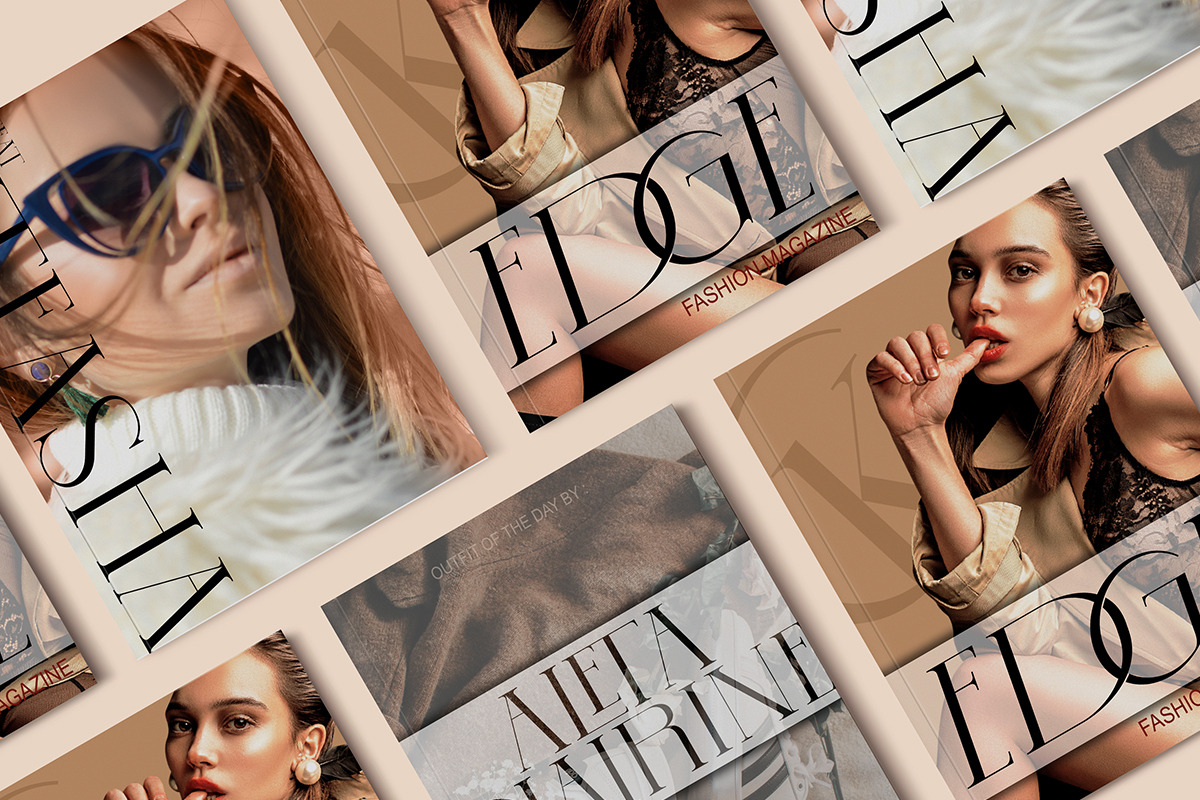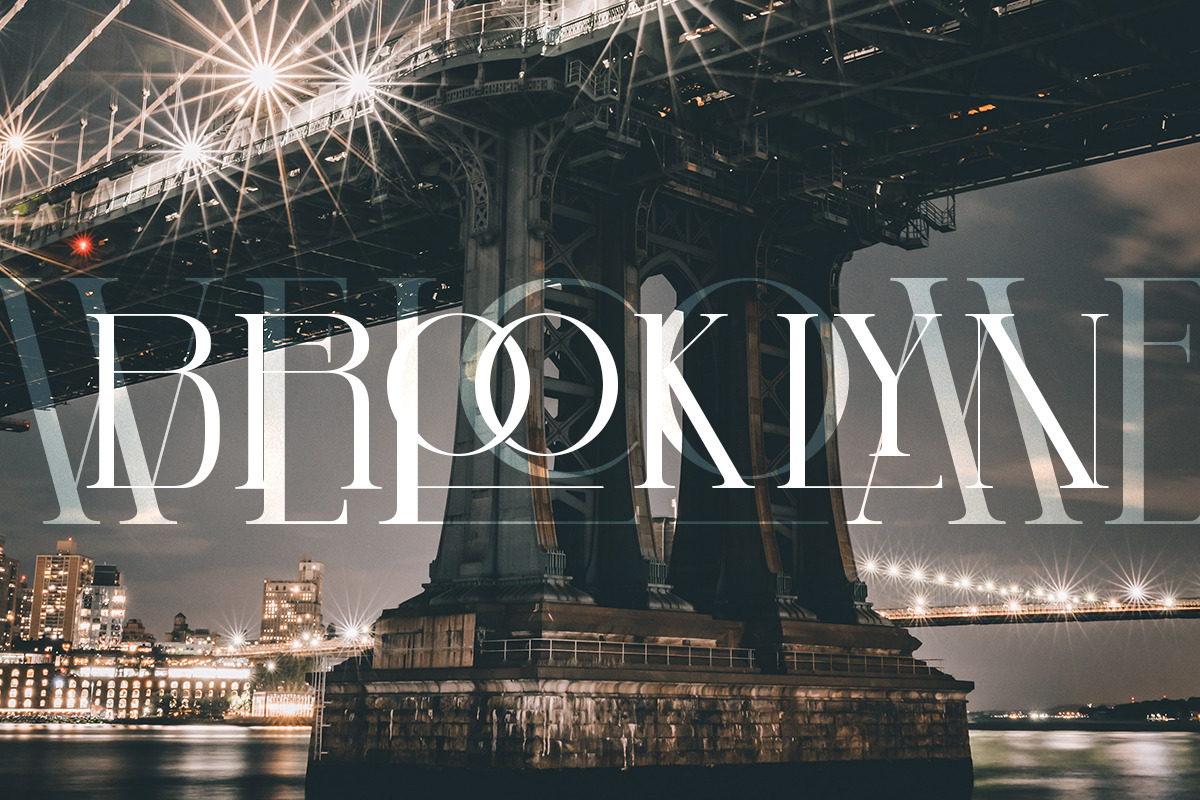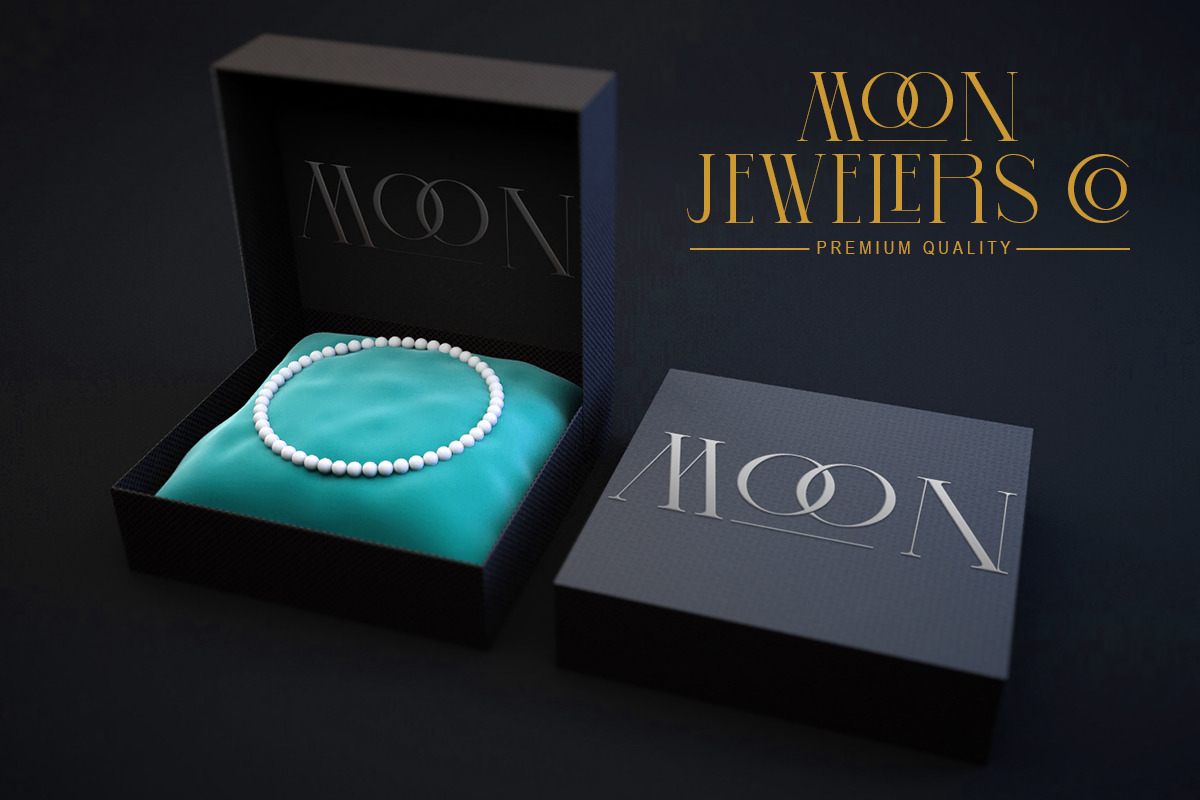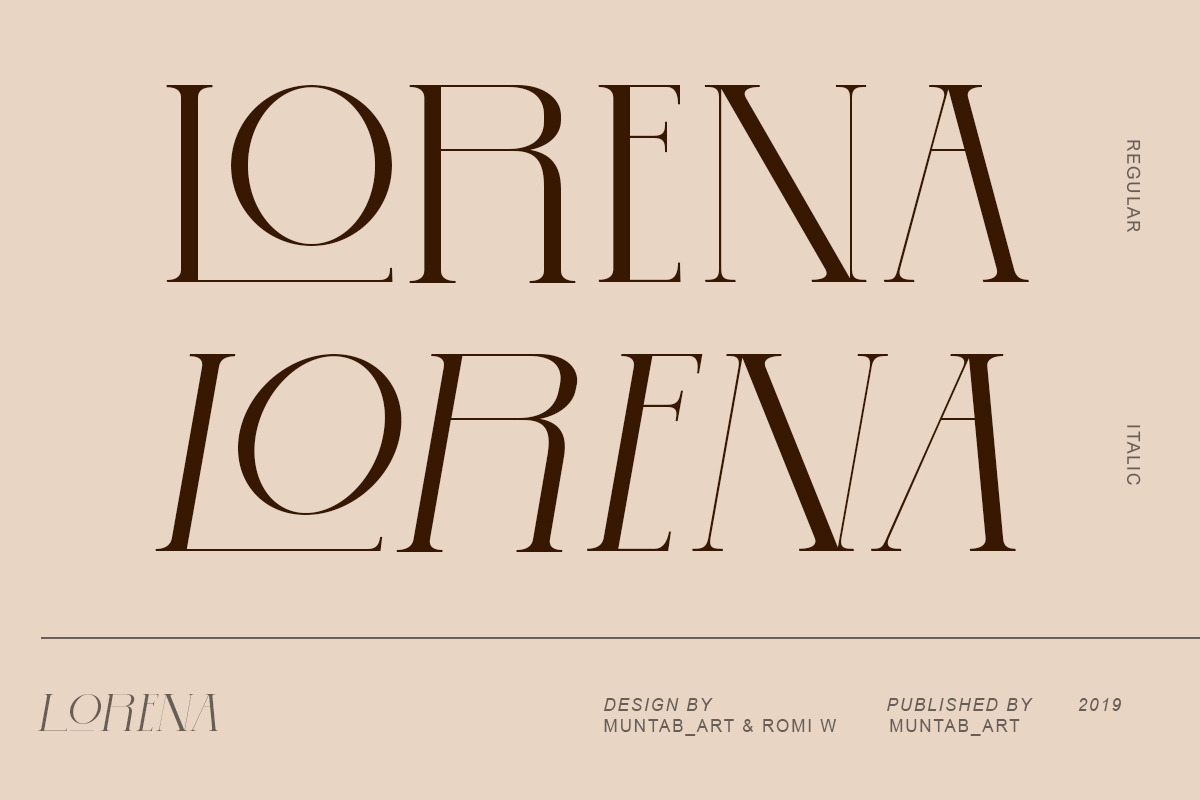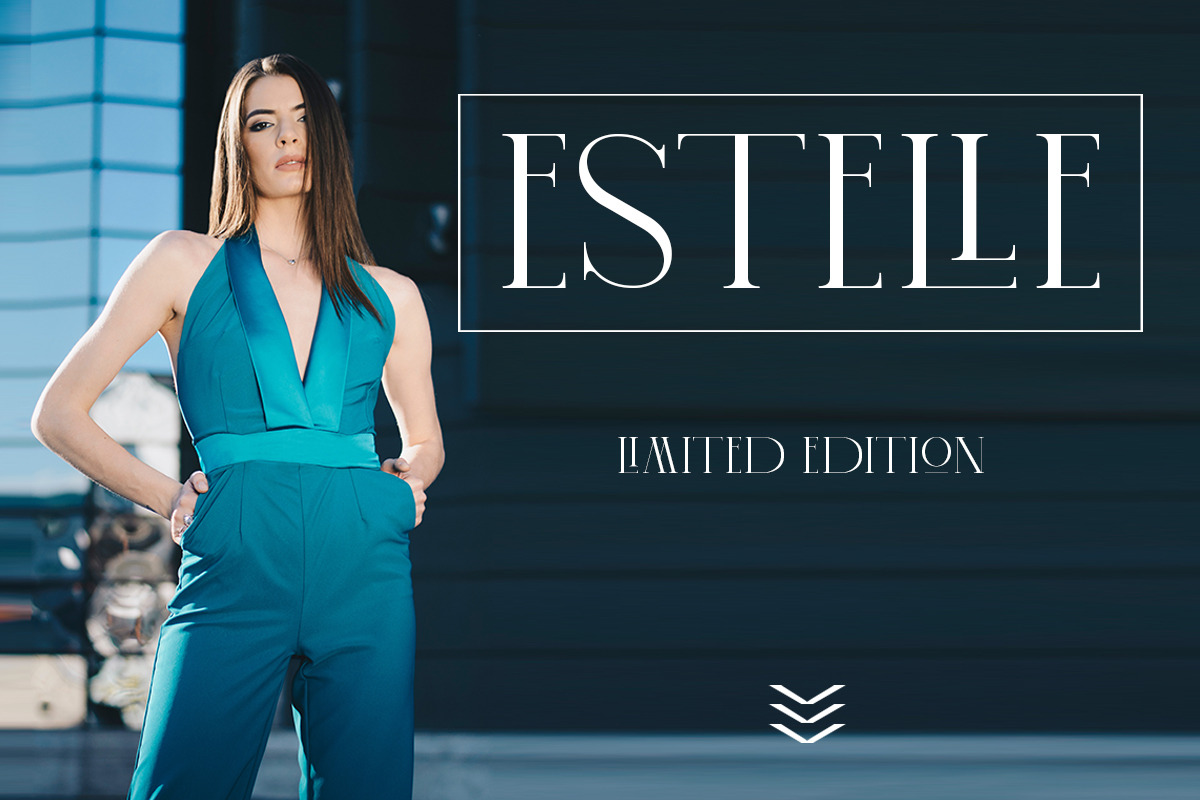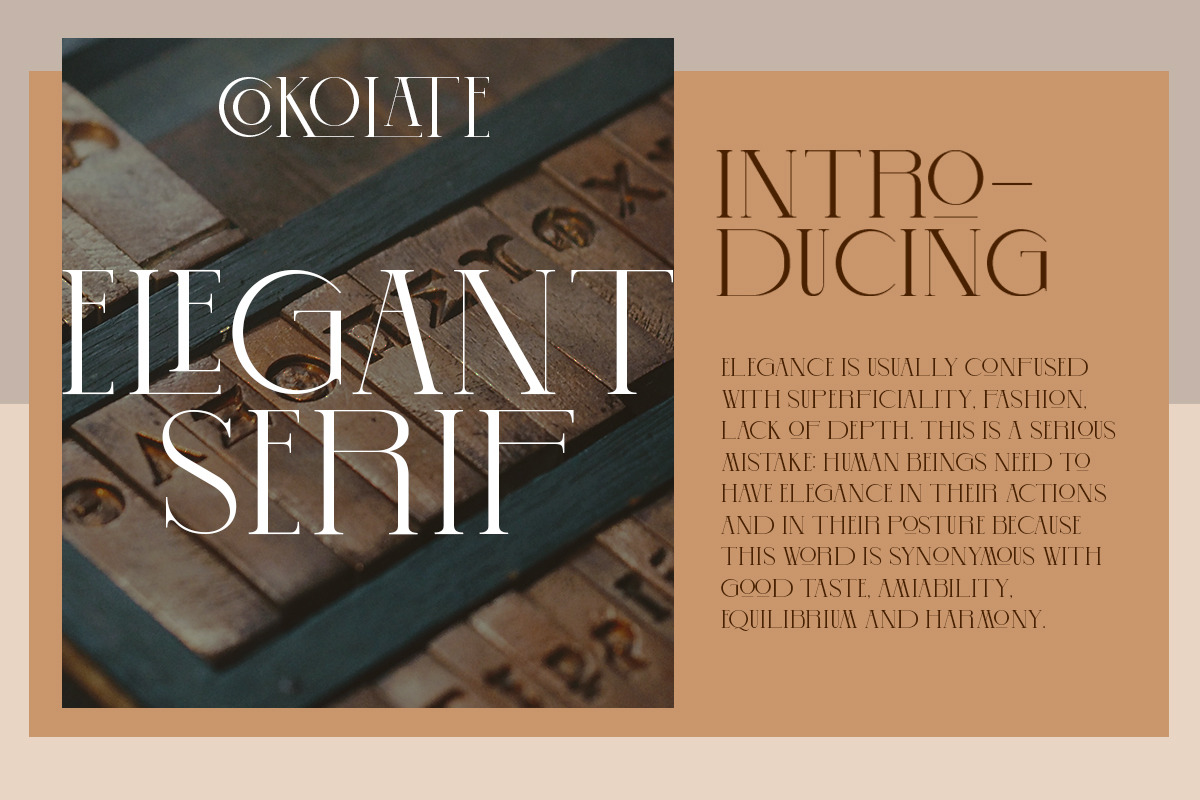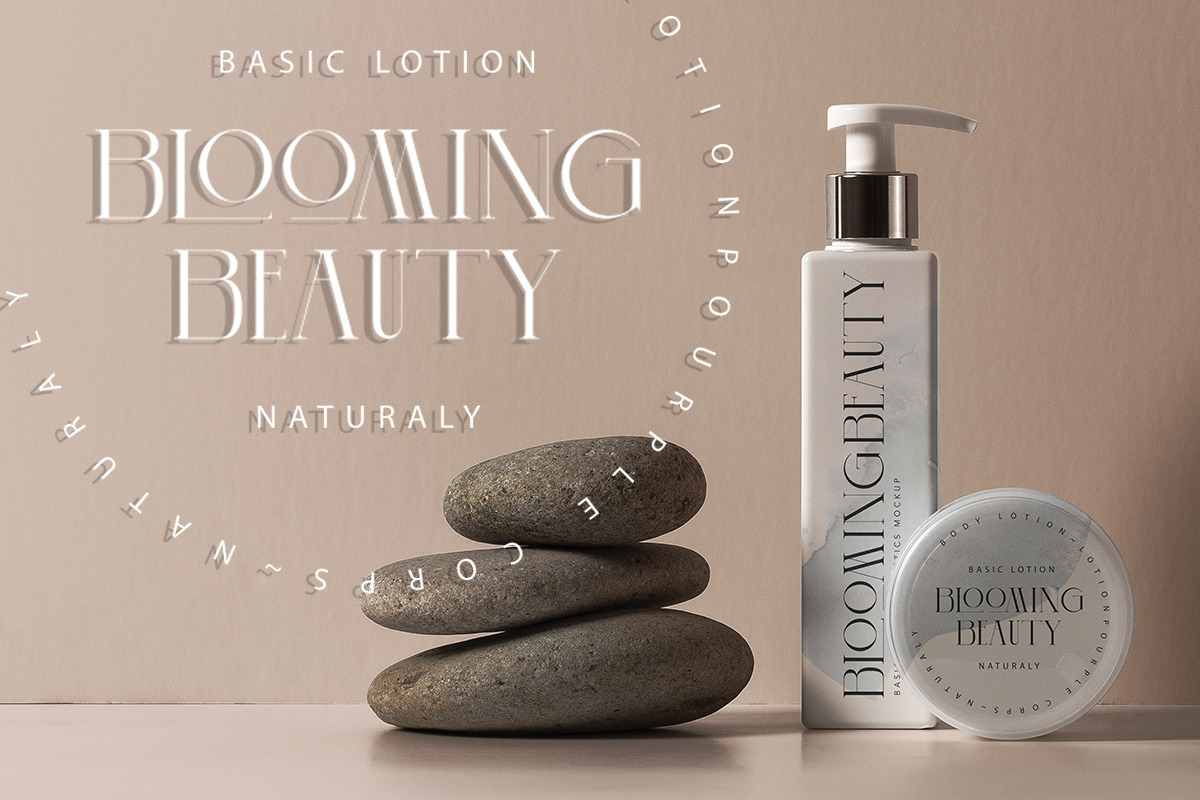
Lorena | Modern Serif Font
Lorena is an Modern Serif font with 2 style; Regular and Italic, perfect for logo design, branding, clothing design, posters, wedding invitations and so much more! All Ligature just in the Capslock type and ALL IS CAPS SERIF.
- All Ligature just in the Capslock type and ALL IS CAPS SERIF.
- Lorena Regular
- Lorena Italic